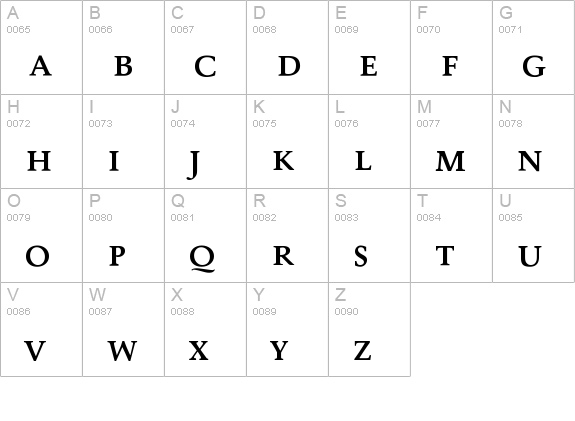
Eco401Scaps Font Details
Introducing Eco401Scaps, a stunning font that effortlessly captures the essence of nature and sustainability. This unique typeface is designed to bring a touch of eco-consciousness to your projects, while maintaining a stylish and contemporary aesthetic. With its clean lines and organic-inspired letterforms, Eco401Scaps exudes a sense of harmony and balance. Each character is carefully crafted to reflect the beauty of the natural world, making it the perfect choice for environmentally-focused branding, packaging, and editorial design. But what truly sets Eco401Scaps apart is its accessibility. We believe that everyone should have the opportunity to create impactful designs, which is why we are proud to offer this font for free. That's right, Eco401Scaps is freely available to download at FontsMarket.com, allowing designers of all backgrounds and budgets to access this incredible resource. Whether you're working on a green initiative, advocating for sustainability, or simply want to add a touch of eco-friendly flair to your projects, Eco401Scaps is the ideal font choice. Its versatility and visually pleasing aesthetic will help your designs stand out, while its message of environmental consciousness will resonate with your audience. So why wait? Take advantage of this amazing opportunity and download Eco401Scaps today at FontsMarket.com. Join the growing community of designers who are embracing the power of eco-friendly typography and make a lasting impact with your next project.